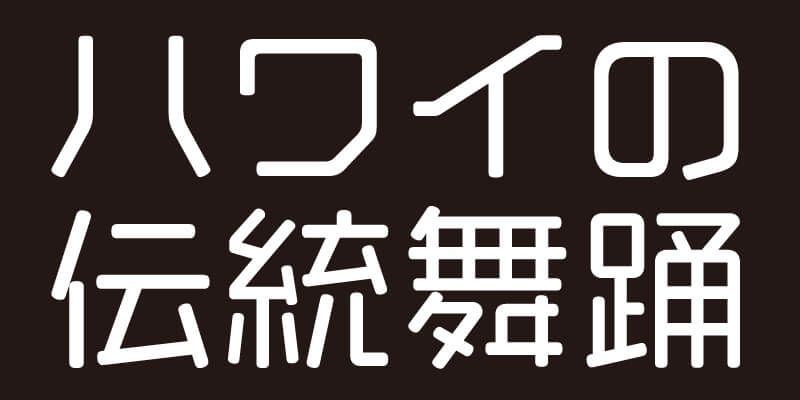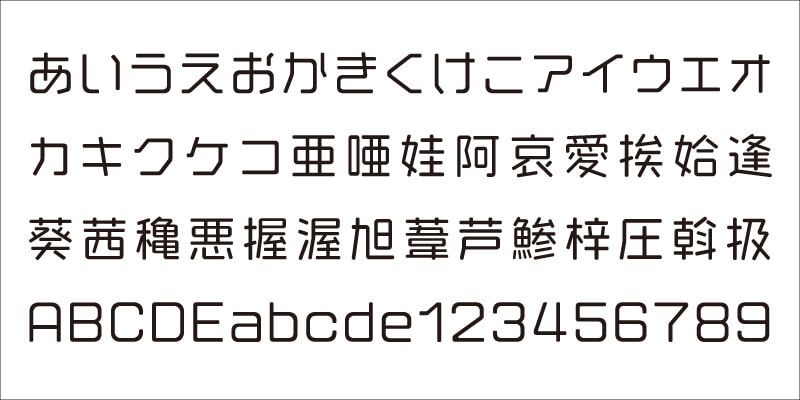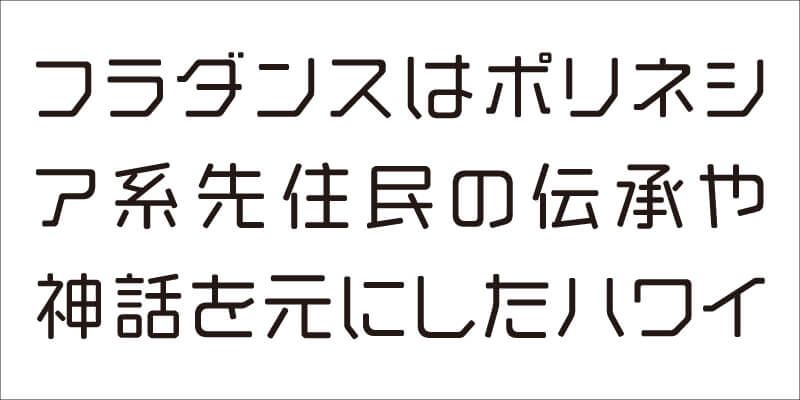
VDL-GigaMaru is a rounded gothic (sans-serif) typeface based on VDL-GigaG, designed with simple, straight lines to stimulate the user’s creativity. The linearity of its strokes produce a tense, yet lively visual effect, which combined with the softness of the rounded corners will breathe new life into your visual expressions.